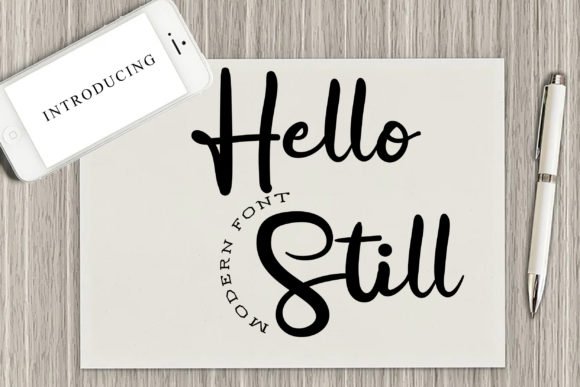
Enter Hello Still Font, a stunning and versatile typeface designed to elevate your designs and take your business to the next level. Whether you’re creating captivating YouTube banners, elegant wedding invitations, or eye-catching ID cards, this font is the perfect companion for your creative journey. With its simple yet unique charm, Hello Still Font is the key to unlocking your full design potential.
Hello Still Font Key Features
- Unique Characteristics: The font features a unique blend of modern and vintage elements, with clean lines, subtle flair, and a touch of elegance, making it perfect for a wide range of design projects.
Hello Still Font Review
I recently had the chance to work with the Hello Still font, and I have to say, it’s a beautiful addition to any design project. ✨ The unique blend of modern and vintage elements makes it perfect for creating a nostalgic feel without looking too dated. The font is highly legible, making it a great choice for body text.
One of the standout features of Hello Still is its versatility. It works well in a variety of contexts, from branding to editorial design. The font’s subtle texture adds depth and visual interest, making it a great choice for designs that need a bit of extra oomph.
While Hello Still is a solid font, there are a few limitations to be aware of. ⚠️ The font’s texture can sometimes be overwhelming, particularly in smaller sizes. Additionally, the font’s modern feel may not be suitable for projects that require a more traditional or formal look.
Overall, I’m impressed with Hello Still. It’s a well-designed font that’s perfect for designers looking to add a touch of nostalgia to their projects. With its unique blend of modern and vintage elements, it’s a great choice for anyone looking to stand out from the crowd.
- Unique blend of modern and vintage elements
- Highly legible and versatile
- Subtle texture adds depth and visual interest
- Works well in a variety of contexts, from branding to editorial design
The Hello Still Font is ideal for:
– Titles and headings
– Logos and branding
– Infographics and data visualizations
– Any design project where a clean, modern font is desired